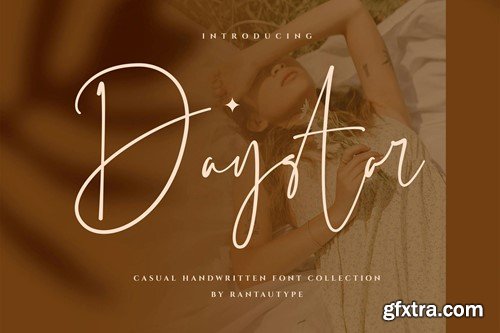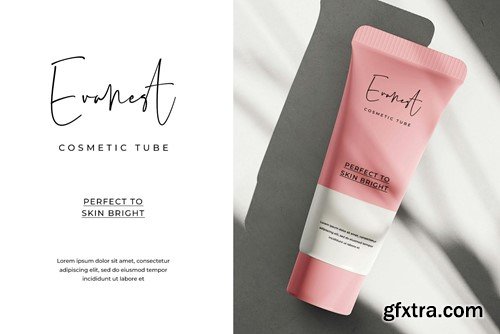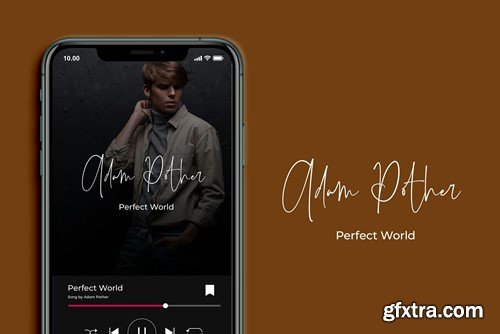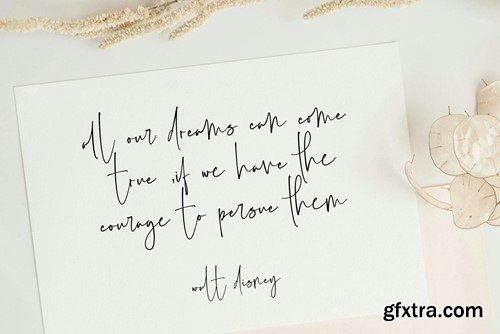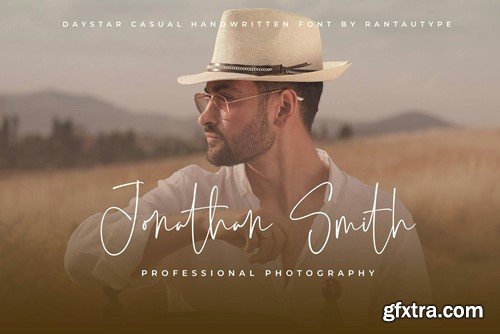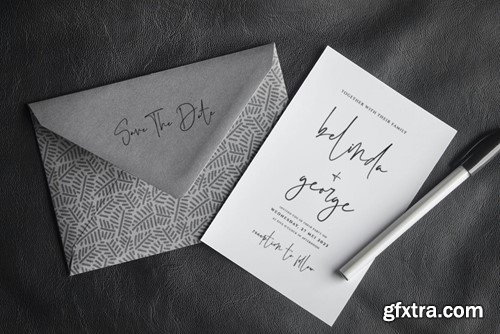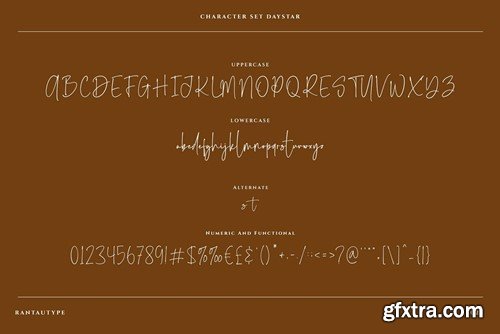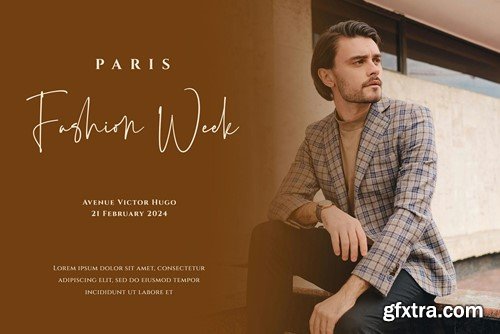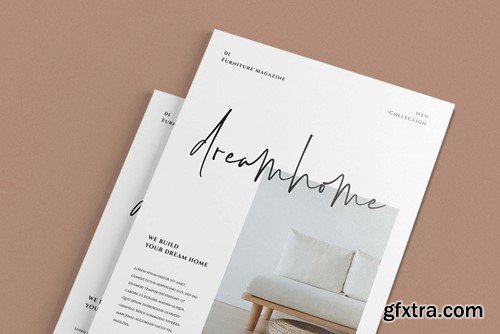
Daystar Casual Handwritten Font 6PXDGNB
Daystar is in a stylish handwritten font inspired by elegant brand and stylish concept. The curve give a casual look make it chic and classy. Daystar come with alternate, ligature and already support multingual accent character. Daystar perfectly choice for any creative endeavor, chic, lifestyle design such as logos, title, watermark on photography, cover, branding, display and magazine, wedding event, corporate brand, quotes, album cover, business card, business project and many other design project with handwritten taste. Features: File include: Multilinggual Accent Character support: Afrikaans, Albanian, Asu, Basque, Bemba, Bena, Breton, Chiga, Cornish, Dutch, English, Estonian, Filipino, Finnish, Friulian, Galician, Gusii, Indonesian, Irish, Italian, Kabuverdianu, Kalenjin, Kinyarwanda, Luo, Luxembourgish, Luyia, Machame, Makhuwa-Meetto, Makonde, Malagasy, Manx, Morisyen, North, Ndebele, Nyankole, Oromo, Portuguese, Quechua, Romansh, Rombo, Rundi, Rwa, Samburu, Sango, Sangu, Scottish, Gaelic, Sena, Shambala, Shona, Soga, Somali, Spanish, Swahili, Swedish, Swiss, German, Taita, TesoUzbek (Latin), Volapük, Vunjo, Zulu Thank you for visit our store and Hope you enjoy our font!!